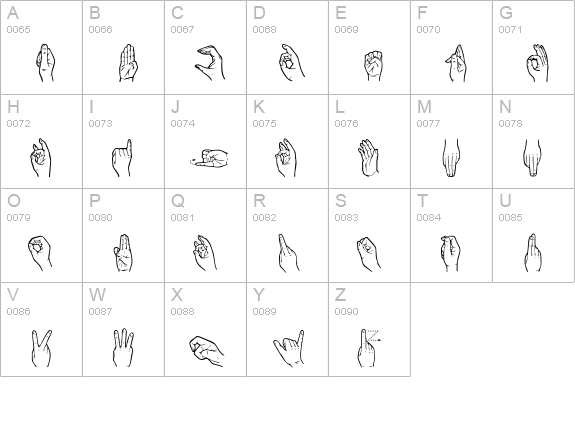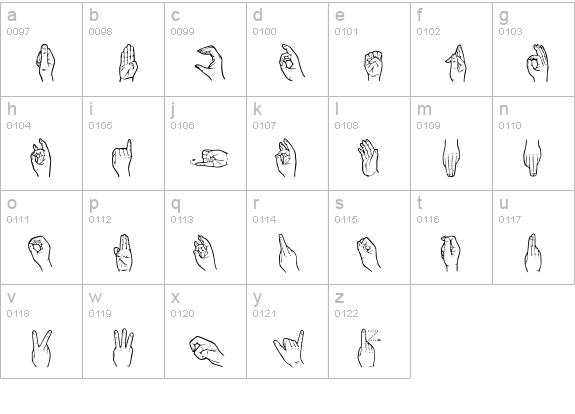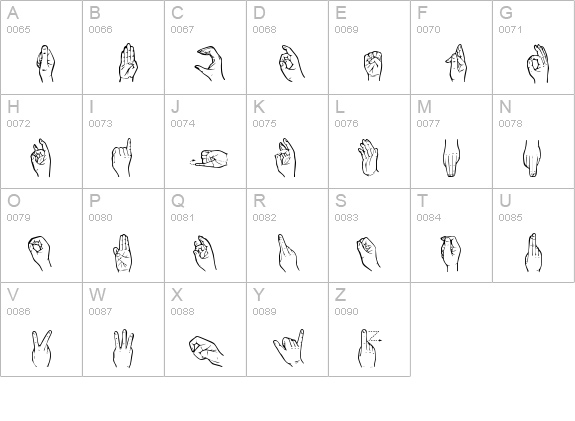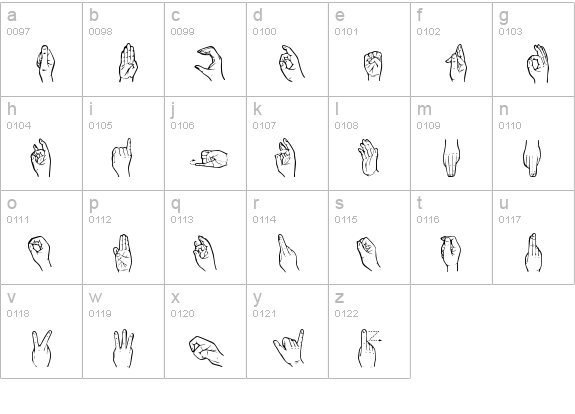
HandSign is a beautifully crafted font that exudes elegance and charm. With its unique hand-drawn style, this font is perfect for adding a personal touch to any design project. The intricate details and flowing lines of HandSign make it a standout choice for invitations, logos, and branding materials. What sets HandSign apart is not just its stunning aesthetics, but also the fact that it is available free of charge. Yes, you read that right - HandSign is freely available to download at FontsMarket.com. This means that you can access this incredible font without having to spend a dime. Whether you're a professional designer or simply someone who appreciates the beauty of typography, HandSign is a font that you don't want to miss out on. Its versatility allows it to be used in a variety of contexts, from wedding invitations to social media graphics. With HandSign, you can effortlessly elevate your designs and leave a lasting impression on your audience. So why wait? Head over to FontsMarket.com and grab your free download of HandSign today. Unleash your creativity and let this stunning font breathe life into your next project.